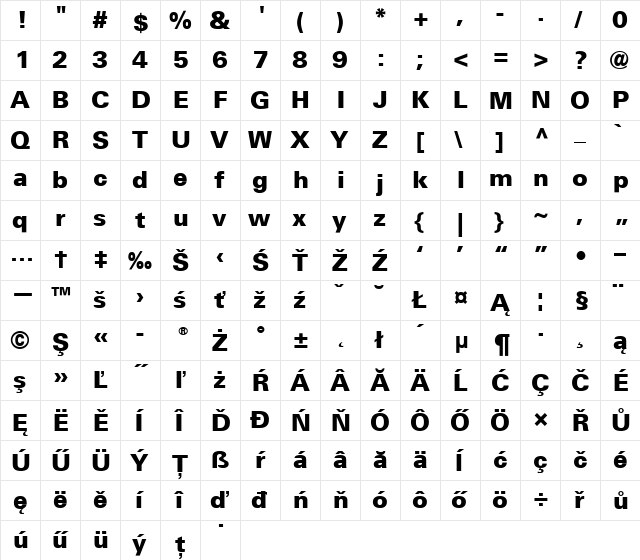
Univers CE 55 Medium Bold
Design Context for Univers CE 55 Medium Typeface
Univers CE 55 Medium takes a measured approach to typography — its balanced proportions and neutral character make it a reliable workhorse for both digital and print work. Its bold stroke weight gives it real presence on the page.
Pro Tip: Pair Univers CE 55 Medium with a font of contrasting weight or personality to build a more expressive typographic hierarchy.